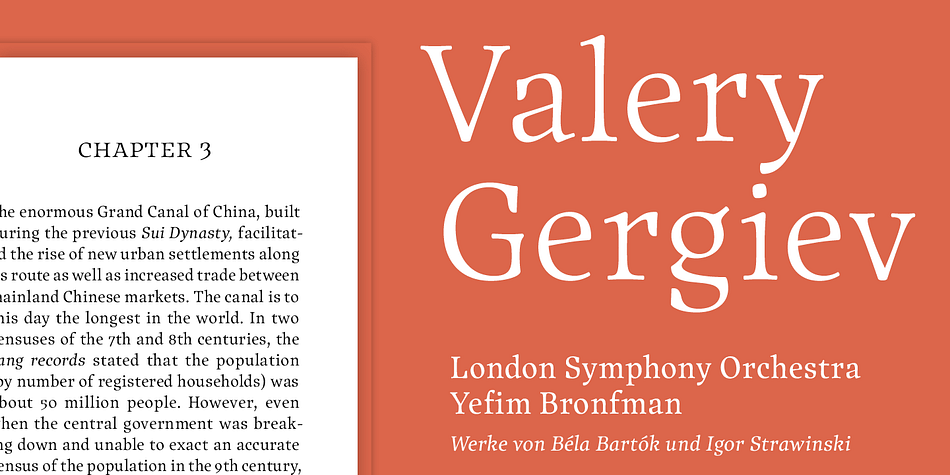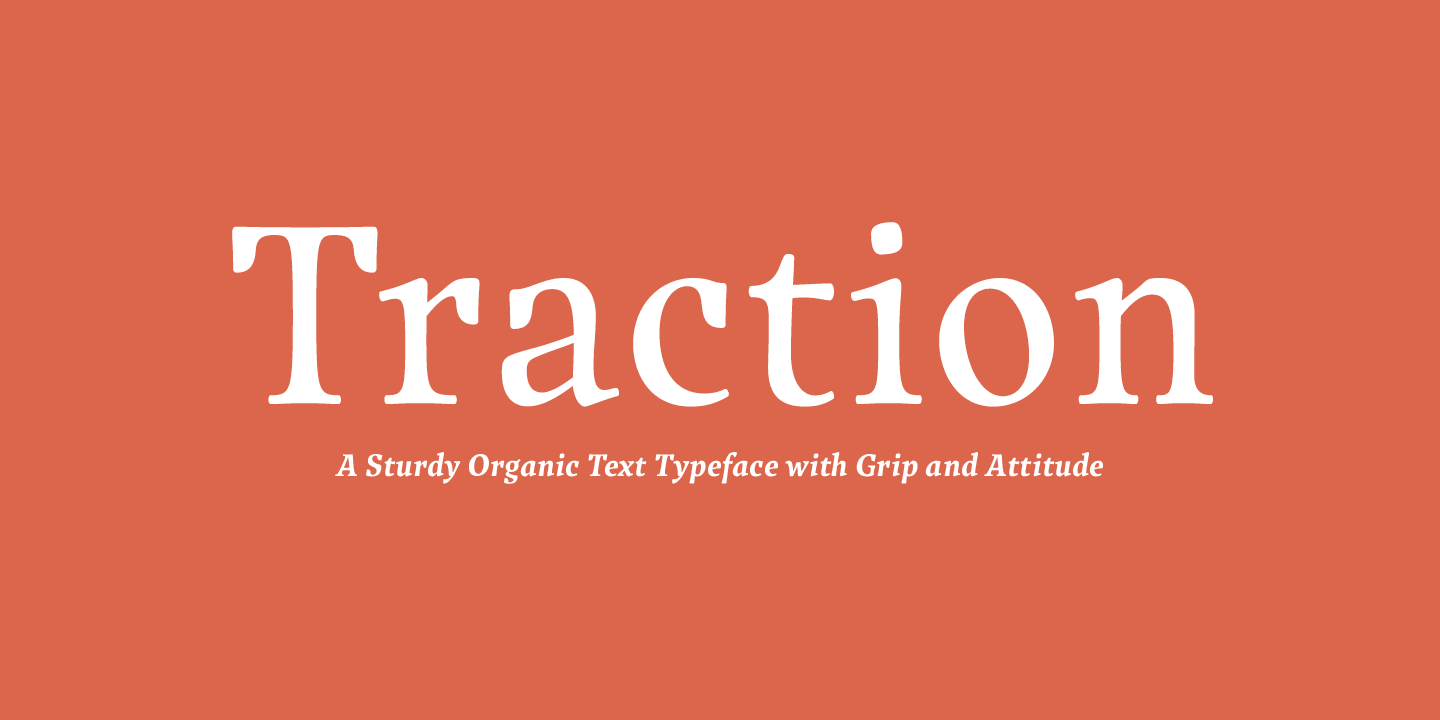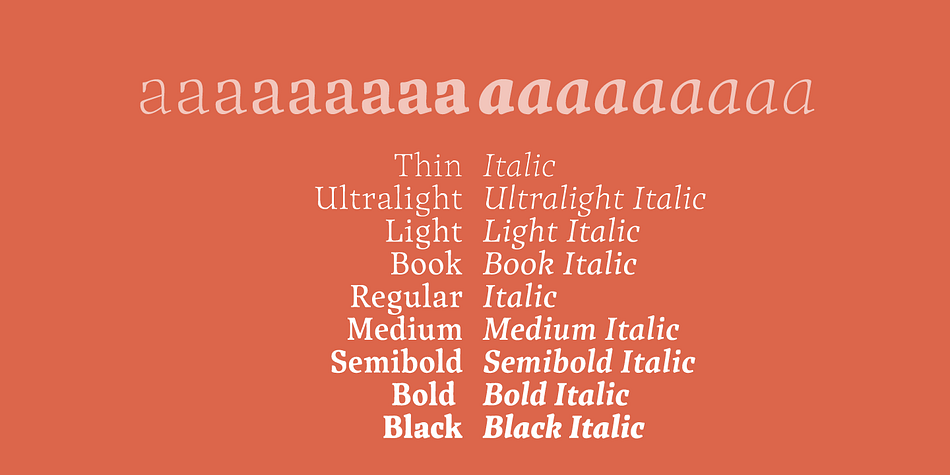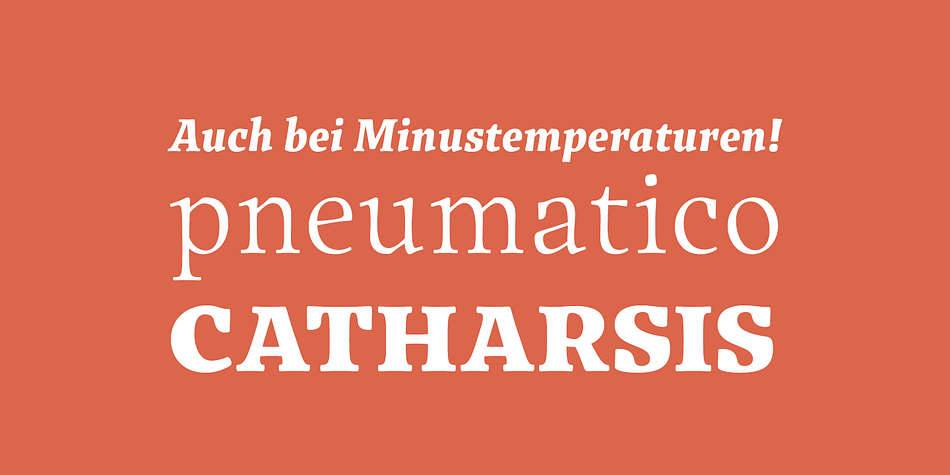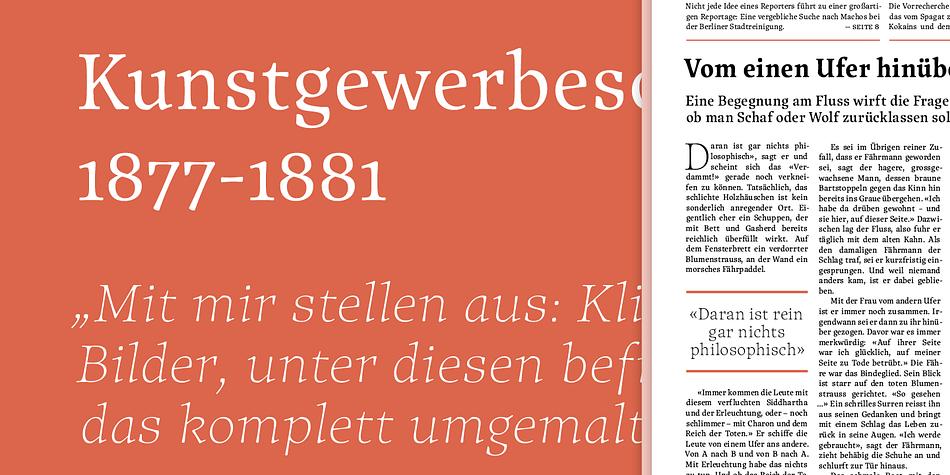
Traction is a serif font family. This typeface has eighteen styles and was published by Schriftlabor.
Traction sports signature serifs, soft edges and a fluid, organic design, therefore it is ‘a sturdy organic text typeface with grip and attitude’. Enlarged, the organic letters are reminiscent of the profiles of off-road tires and hiking boots. But in text sizes, it is the humanistic forms that set the tone and ensure fluid legibility.
Typeset in 9 weights, from Regular to Black, each of them accompanied by an italic, totaling in 18 styles. In each style, you can activate small-caps. Every Traction font contains more than 1000 glyphs, including the capital German sharp ẞ. The complete family of 18 fonts has more than 18,200 glyphs and supports at least 218 languages.